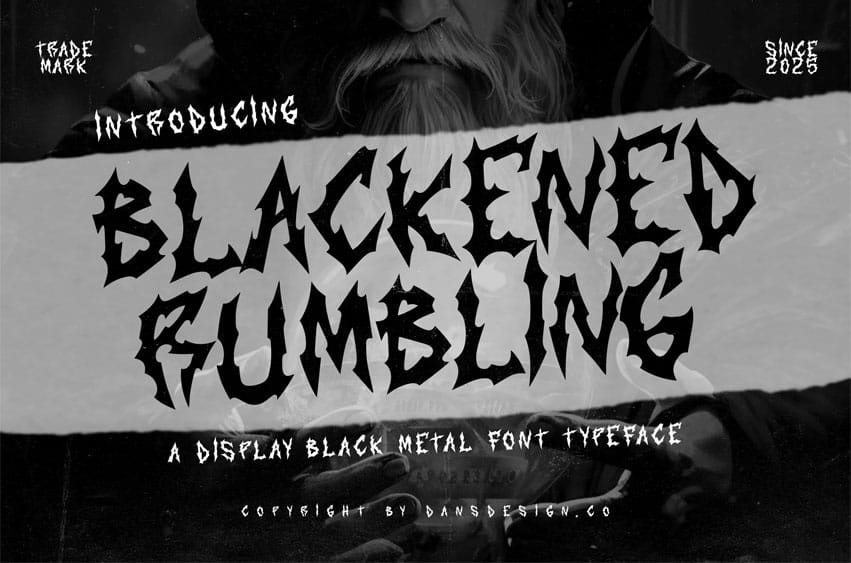
Blackened Rumbling Font is a high-impact blackletter display typeface forged for chaos, darkness, and rebellion. Inspired by the raw energy of black and death metal visuals, this font features sharply cut letterforms and rugged textures that scream attitude and power.
With no need for complex ligatures, Blackened Rumbling stands on its own—every character crafted with striking precision and brutal style. Its aggressive angles and gothic anatomy make it the perfect tool for extreme design needs.
Whether you’re creating logos for underground metal bands, horror movie posters, or occult-themed merchandise, Blackened Rumbling delivers unmatched edge and authenticity.
Razor-sharp blackletter structure with rough, distressed texture. Bold, character-rich letterforms designed for extreme visuals. Full multilingual support with accented characters PUA encoded – easily accessible in all design software. Includes numerals and punctuation (OpenType Standard)
Black, death, and doom metal band logos, Tattoo studio branding & apparel, Horror visuals, zines, and film posters, Occult and gothic packaging, Dark retro-inspired typography
Let your designs cut deep with boldness and brutal form. Blackened Rumbling isn’t just a typeface—it’s a declaration of visual intensity.